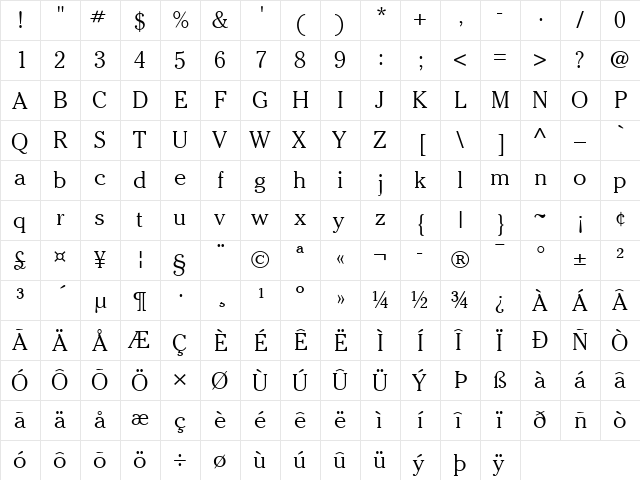
Cheltenham LT Light Regular
Design Context for Cheltenham LT Light Typeface
Cheltenham LT Light takes a measured approach to typography — its balanced proportions and neutral character make it a reliable workhorse for both digital and print work. Its slender proportions lend an understated elegance to any composition.
Pro Tip: Use Cheltenham LT Light in both headline and body roles to test its range before committing to a single application.